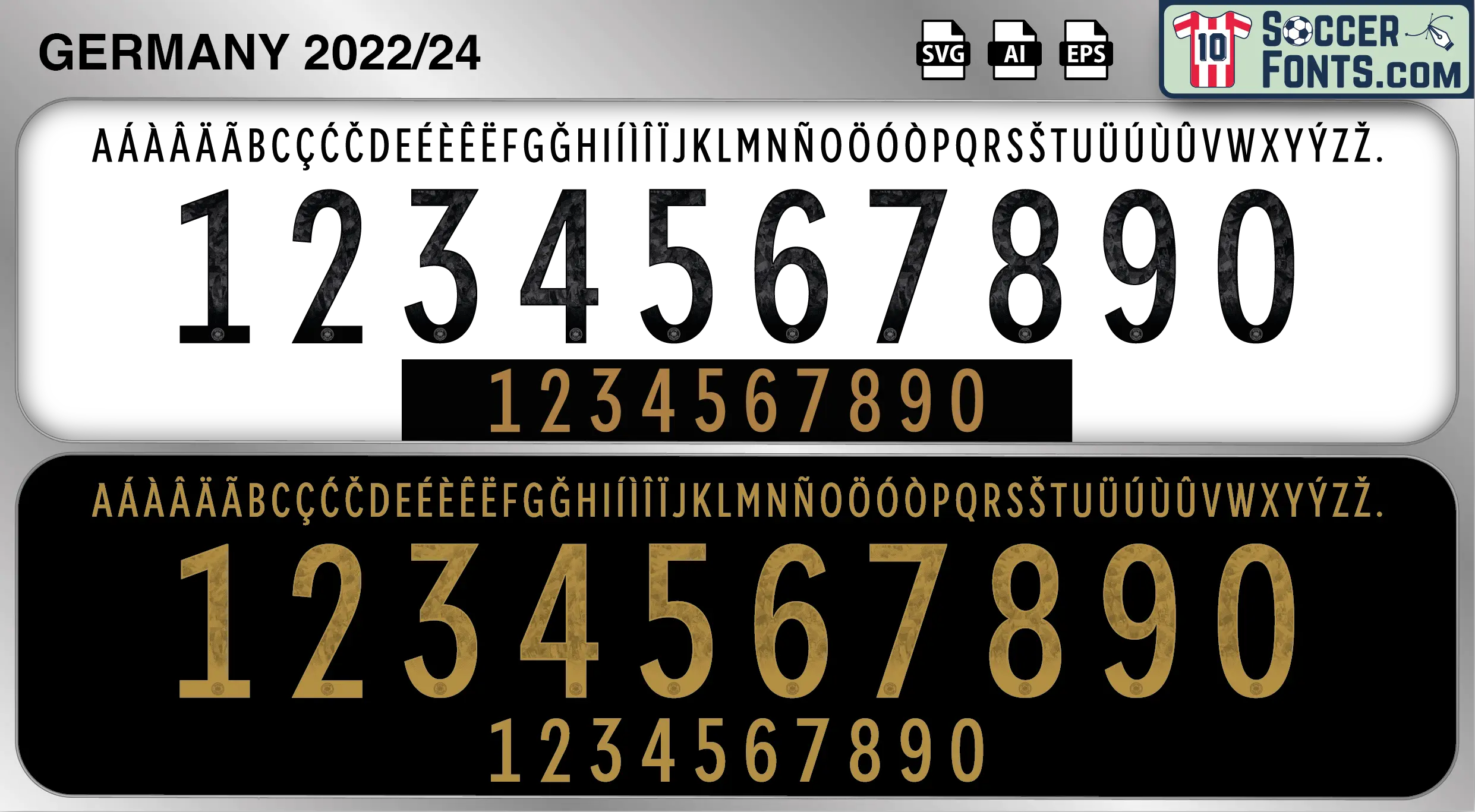
Germany 2022-24 Font
The Germany 2022-24 font is an editable soccer jersey lettering design in vector format inspired by the Germany kit style used during the 2022-24 football seasons. This football font artwork is prepared for football shirt recreations, custom jersey projects, football kit mockups and sports graphic design workflows.
The 2022-24 period was one of the most significant rebuilding phases in recent German football history. Following the 2022 FIFA World Cup in Qatar, Germany continued reshaping the national team under new leadership while preparing to host UEFA EURO 2024. The squad featured players such as Jamal Musiala, Florian Wirtz, Joshua Kimmich, Kai Havertz, Antonio Rüdiger and İlkay Gündoğan, combining experienced internationals with some of Europe’s most promising young talents. As hosts of EURO 2024, Germany entered a new era of optimism and expectation, seeking to reconnect with supporters and restore its position among the continent’s elite national teams.
The Germany 2022-24 font became associated with the emergence of a new generation and the road toward a major tournament on home soil. Germany shirts from this era remain highly relevant among football shirt collectors because of their connection with Musiala, Wirtz and the beginning of a fresh football cycle. The Germany 2022-24 font reflects a period of renewal, ambition and cultural significance as Germany prepared to showcase its football identity on one of the sport’s biggest stages while building for the future.